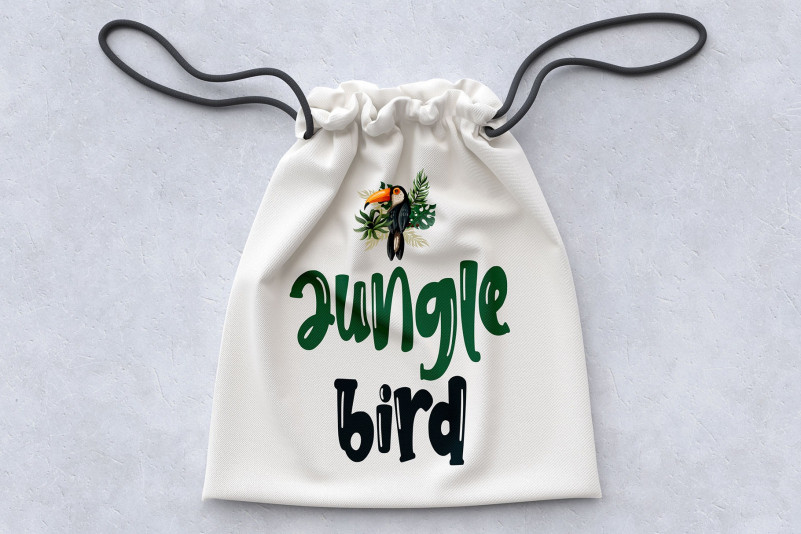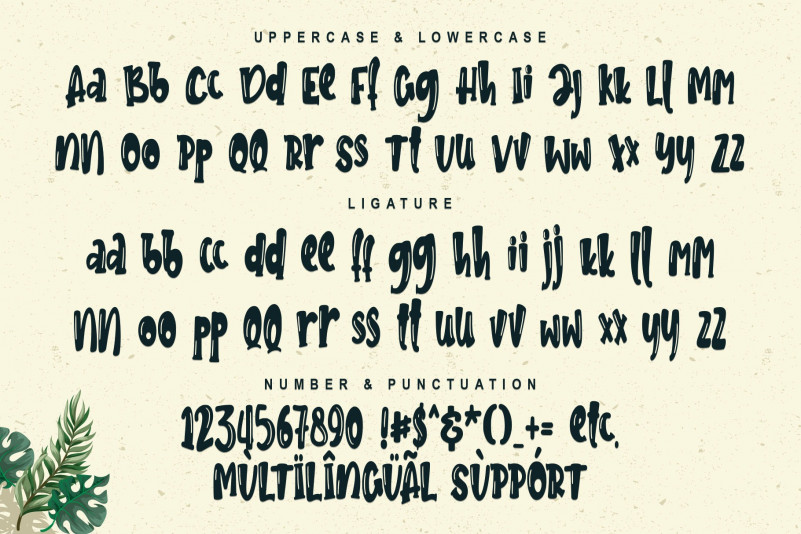
Betron Display Font
Betron is a bold and authentic display font. Incredibly versatile, this font fits a wide variety of designs. Add it to your most creative ideas and notice how it makes them come alive.